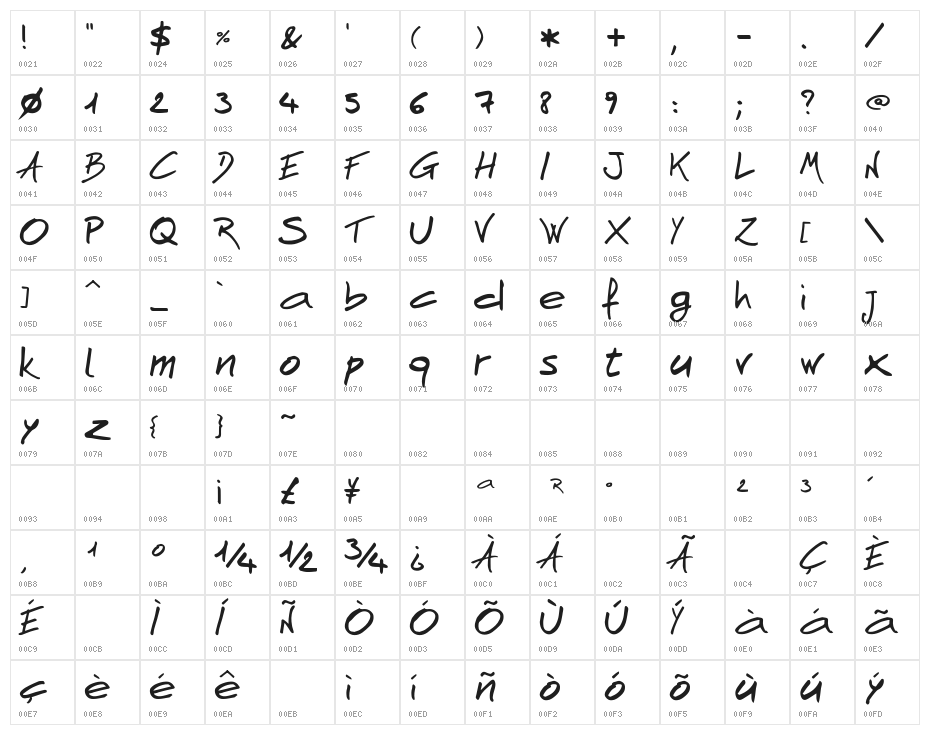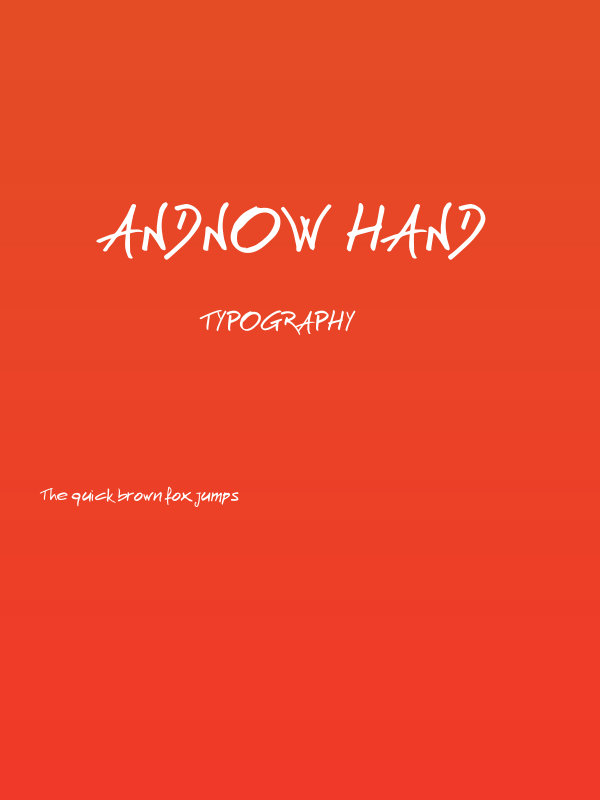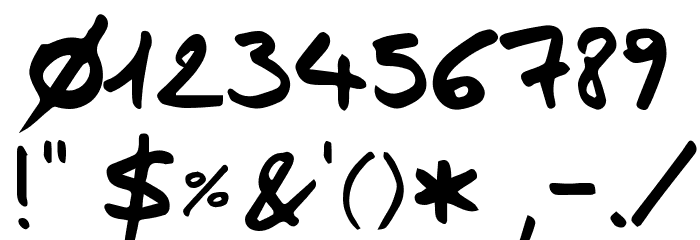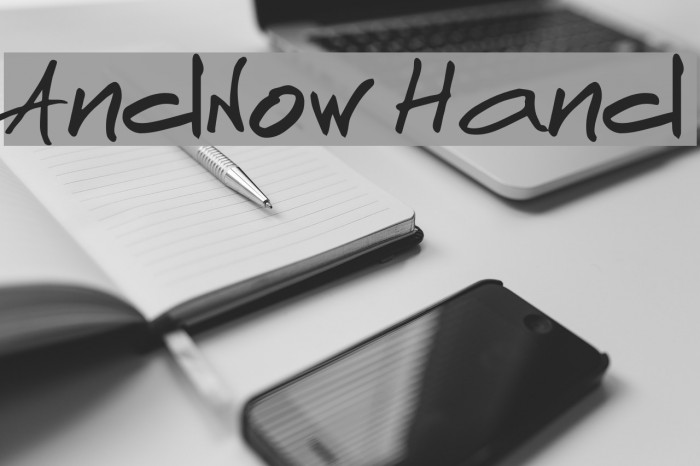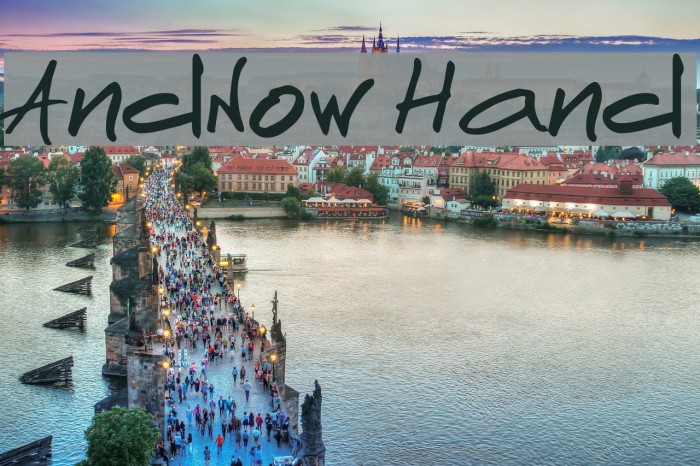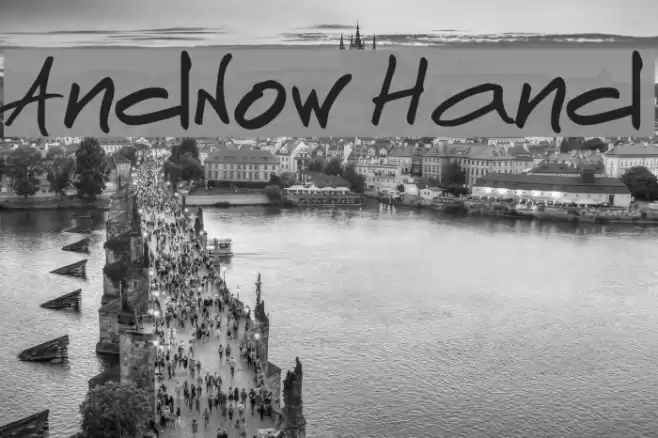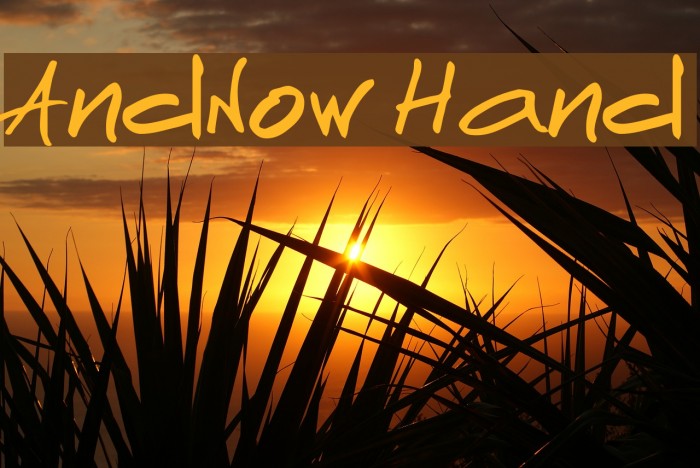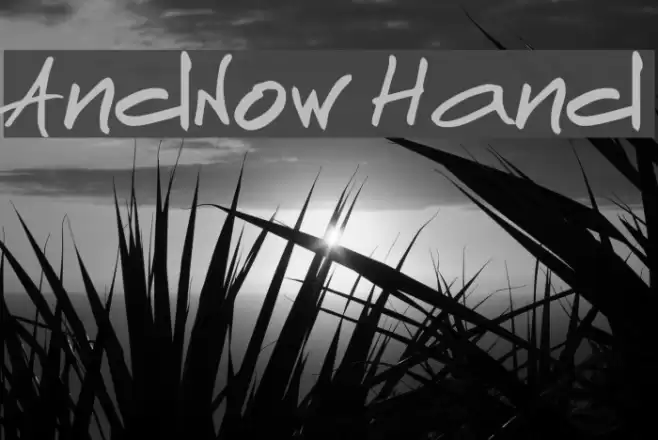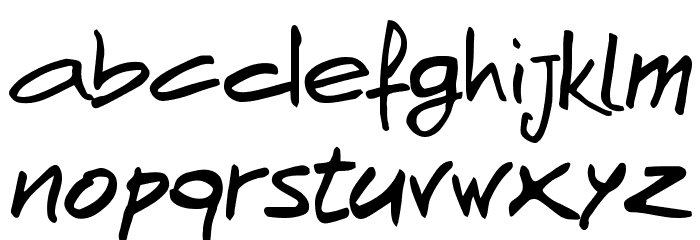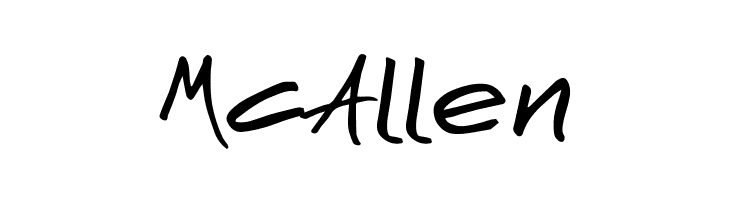
AndNow Hand Font
AndNow Hand Description
This font exudes a lively and dynamic energy, characterized by its handwritten style that mimics the fluidity and spontaneity of natural handwriting. The letters are slightly slanted, adding a sense of motion and informality. Each character is unique, with varying stroke thickness that gives it a personal touch. The uppercase and lowercase letters maintain a consistent style, while the numbers and special characters integrate seamlessly, enhancing the overall cohesive look. The font's playful and casual appearance makes it ideal for projects that require a personal or creative touch.
| Overall Style | Casual and playful |
| Use Case | Logos, Invitations, Creative projects |
| Proposed Projects | Ideal for greeting cards, personal branding, creative projects, and informal invitations. |